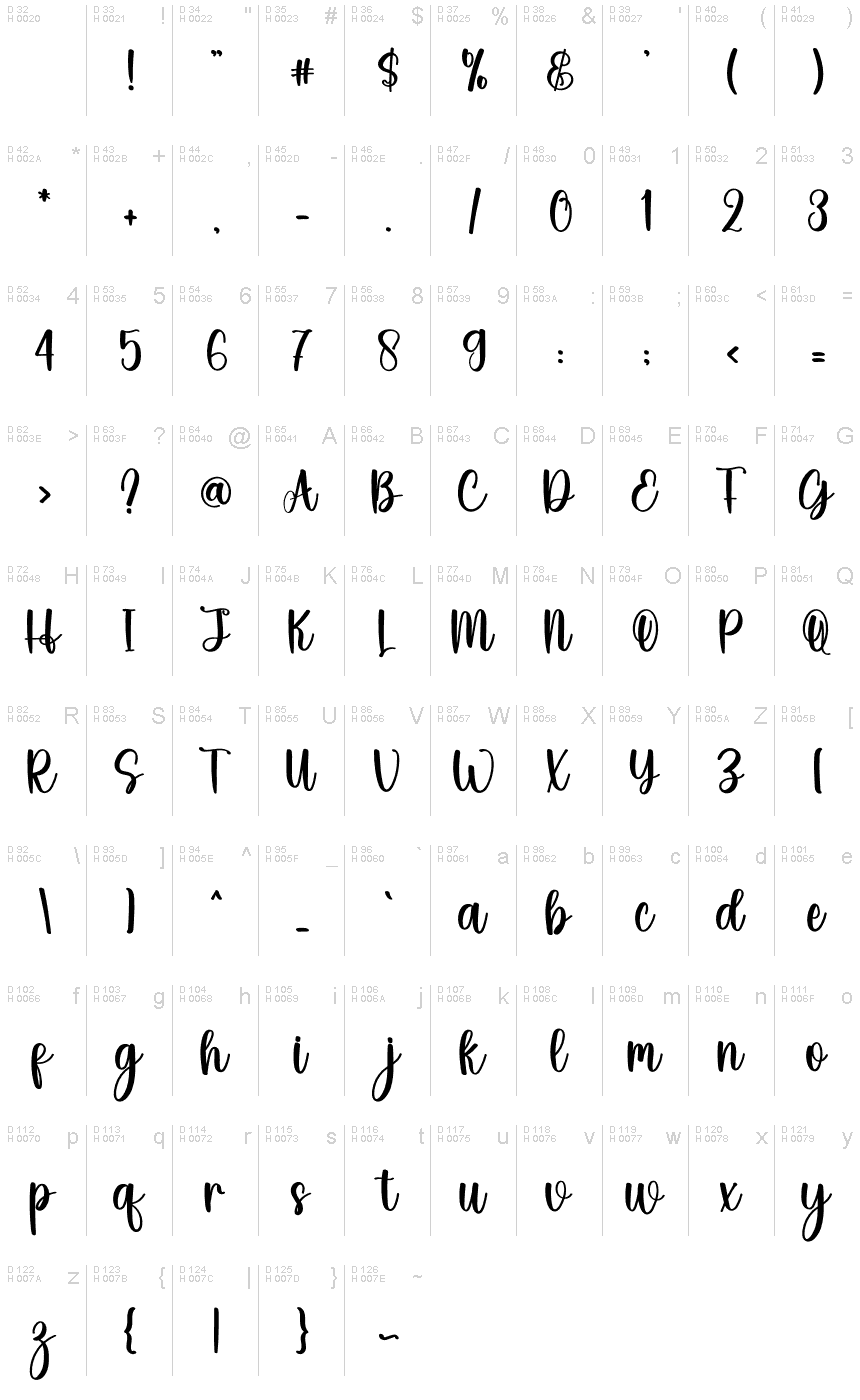
Hamster
Hamster, crafted by the talented Inermedia Studio, is a captivating handwritten font that seamlessly blends modernity with nostalgia. With its graceful curves and delightful quirks, this font exudes warmth and personality. Hamster's versatile semi-bold typeface makes it perfect for a wide range of projects - from branding and packaging designs to invitations and social media graphics. Its ability to convey both playfulness and elegance makes it an ideal choice for children's books, fashion magazines, food blogs, or even artisanal product labels. Let Hamster add a touch of whimsy to your next creative endeavor!